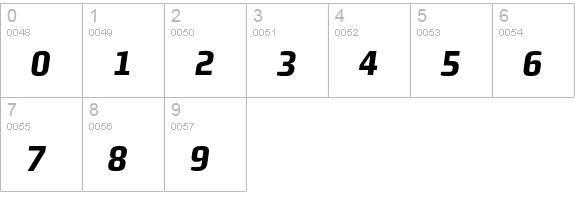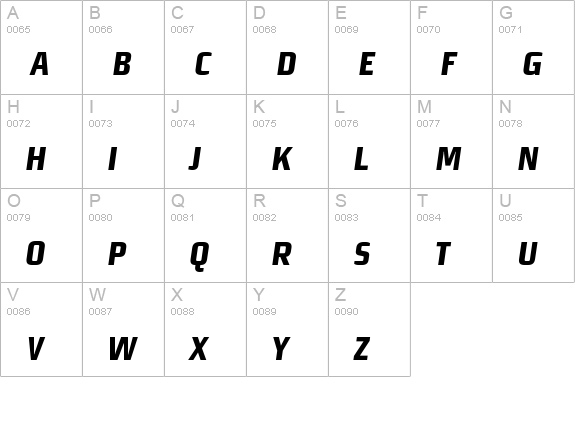
MorganSansCond Bold ItalicCaps Font Details
MorganSansCond Bold ItalicCaps is a strong, high-contrast variant in the MorganSansCond typeface family \xE2\x80\x94 well suited to headlines, attention-grabbing titles, and strong calls-to-action.
Introducing MorganSansCond Bold ItalicCaps - a stylish and versatile font that exudes sophistication and modernity. With its bold strokes and elegant italics, this font is perfect for making a bold statement in your designs. The all-caps style adds a touch of uniqueness and flair, making it stand out from the crowd. And the best part? MorganSansCond Bold ItalicCaps is available for free download at FontsMarket.com! Now you can elevate your projects with this sleek and contemporary font without breaking the bank. Whether you're working on branding, editorial design, or any other creative project, MorganSansCond Bold ItalicCaps is sure to make a lasting impression. Download it today and unleash your creativity with this stunning typeface.